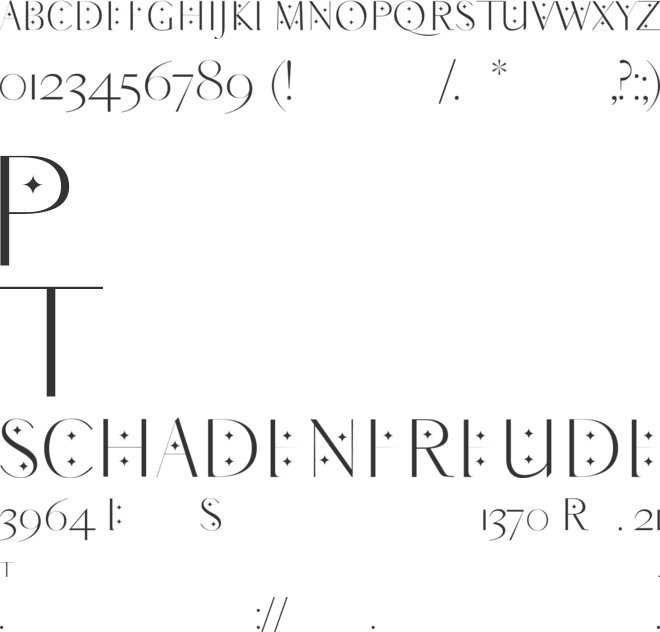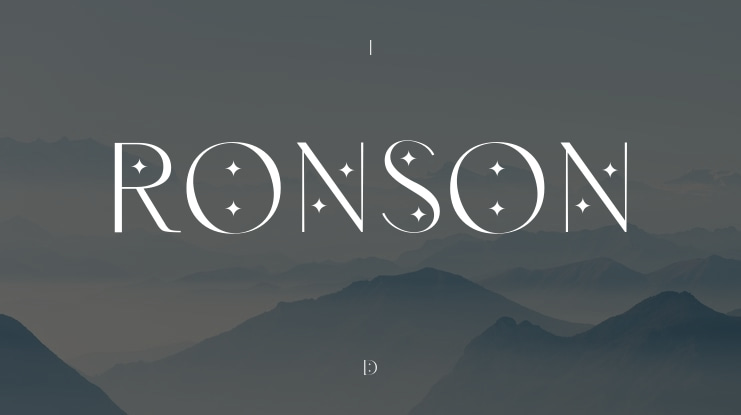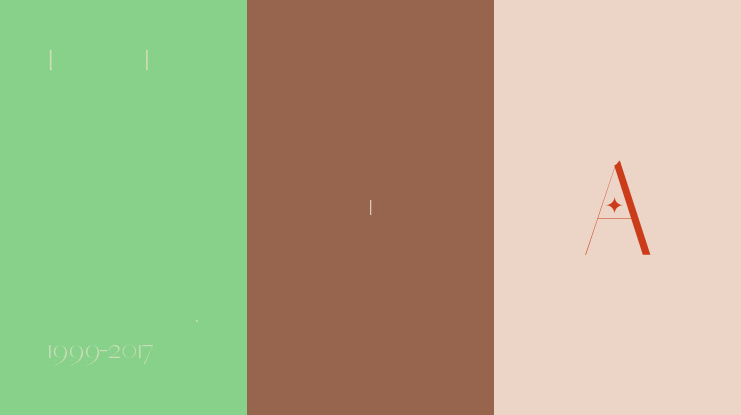
RONSON Font Family
🎨 Font Name: RONSON by Minimalist Art Studio
🎨 Font Description: RONSON is a delicate sans serif with starry elegance, blending modern fashion flair with multilingual versatility.
βœ” Complete Latin set + multilingual diacritics
βœ” Alternates, stylistic sets & ligatures
βœ” Numbers, small caps, and extended punctuation
βœ” Bonus italics and family styles